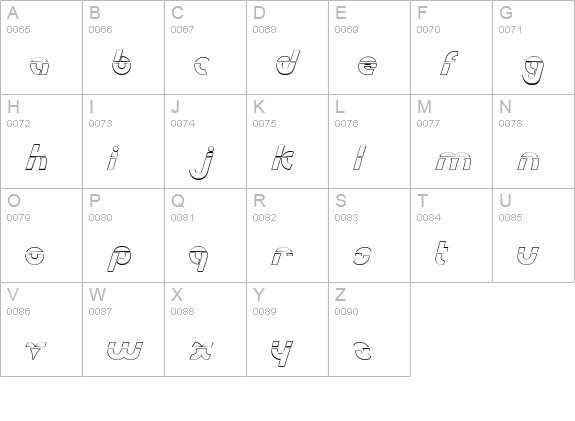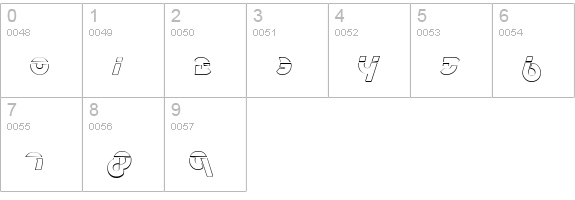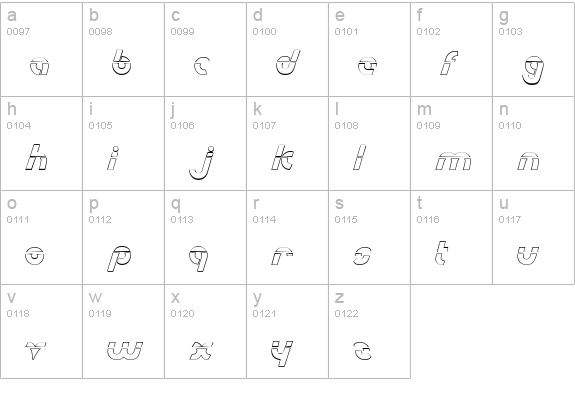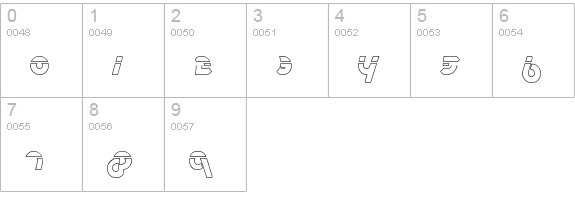
Metroplex Outline Laser Font Details
Introducing Metroplex Outline Laser font - a sleek and futuristic typeface that is sure to make a bold statement in any design project. This stunning font features sharp lines and geometric shapes that give it a modern and cutting-edge look. Perfect for creating eye-catching headlines, logos, posters, and more, Metroplex Outline Laser font will add a dynamic and contemporary touch to your designs. The best part? This font is available for free download at FontsMarket.com. Don't miss out on the opportunity to enhance your projects with this striking typeface without spending a dime. Download Metroplex Outline Laser font today and take your designs to the next level!